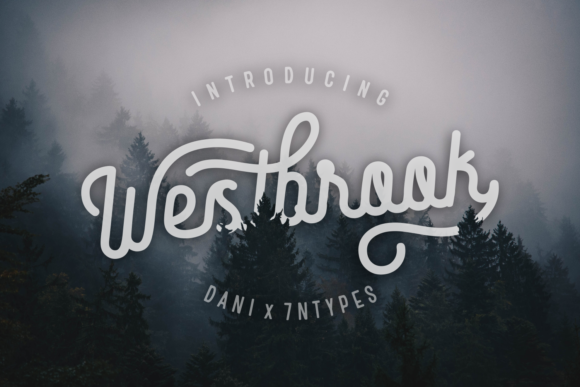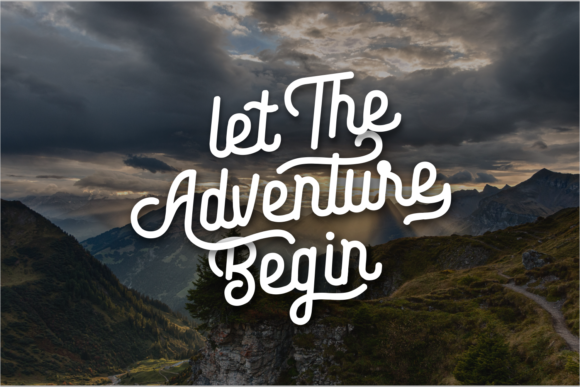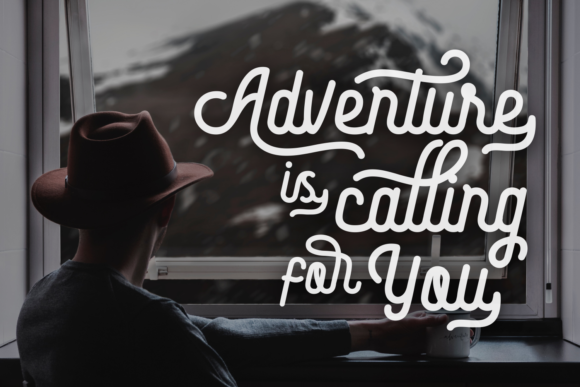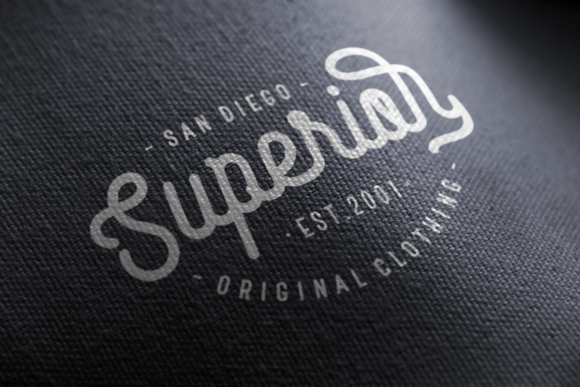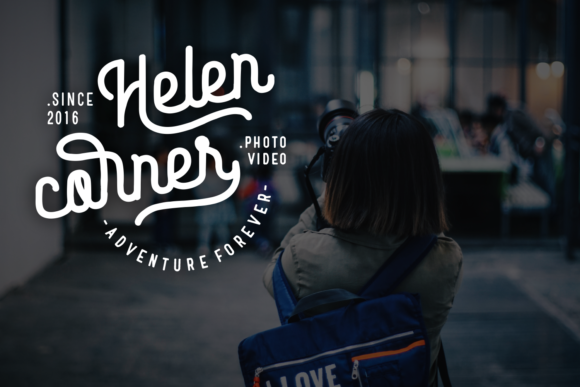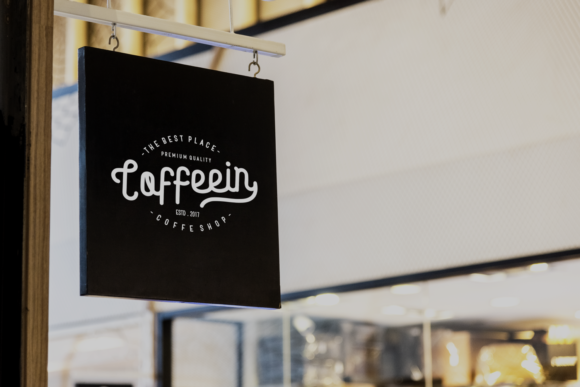
Westbrook Font
About Westbrook Font
Westbrook is a fun and cool handwritten font with a unique feel. It will add a simple and personal flavour to any design idea!